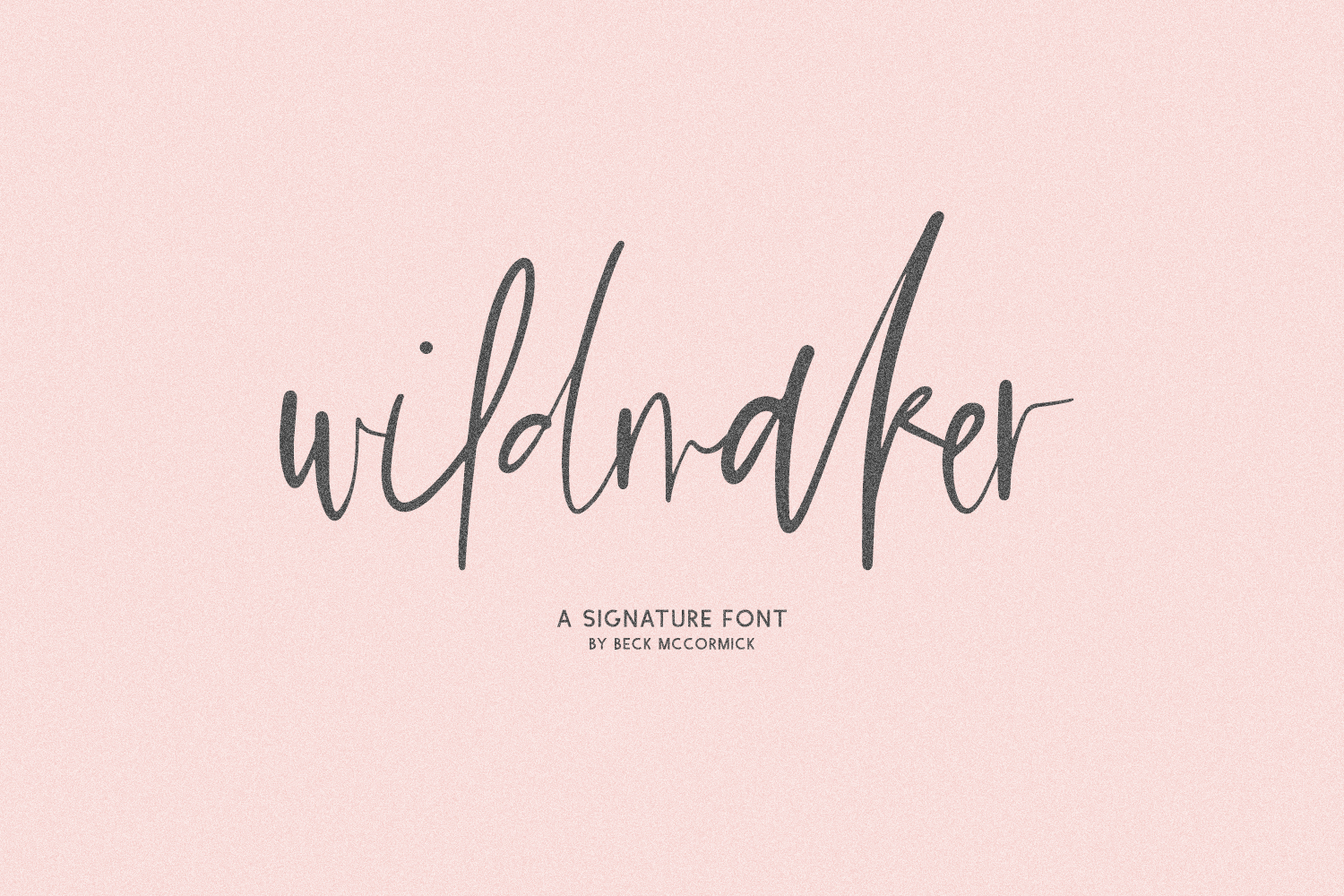
Introducing Wildmaker Script, a modern, edgy handwriting font.
Wildmaker is best for:
- website design + website accents, blog design
Wildmaker includes:
- 29 alternates
- 47 ligatures - ak, al, am, an, ar, as, bb, bl (x2), cc, ch, ck, cr, dd, ee, el, er, es, ey, ff, fi, fl (x2), gg, gh, gr, il, ir, is, it, ll, mm, nn, of, ol, oo, or, os, pp, rr, ss, st, tr, tt, ul, ur, us